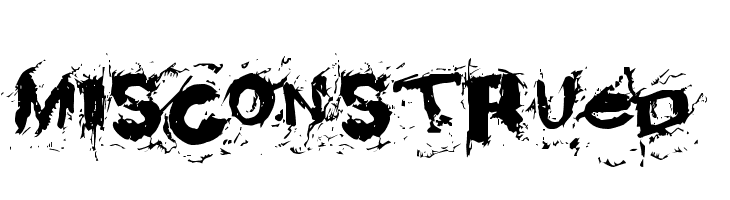
( Fonts by Rob Dobi - Toxic Type - www.dobi.nu )
A chaotic, distressed font with jagged, eroded characters.
A distressed, grunge-style font with a bold, rugged appearance.